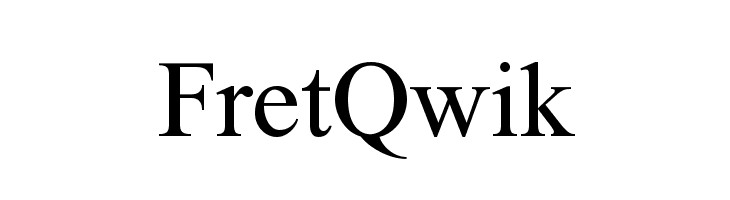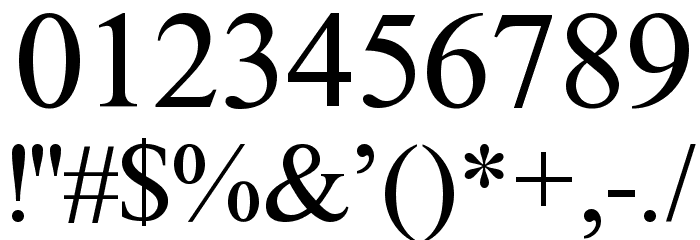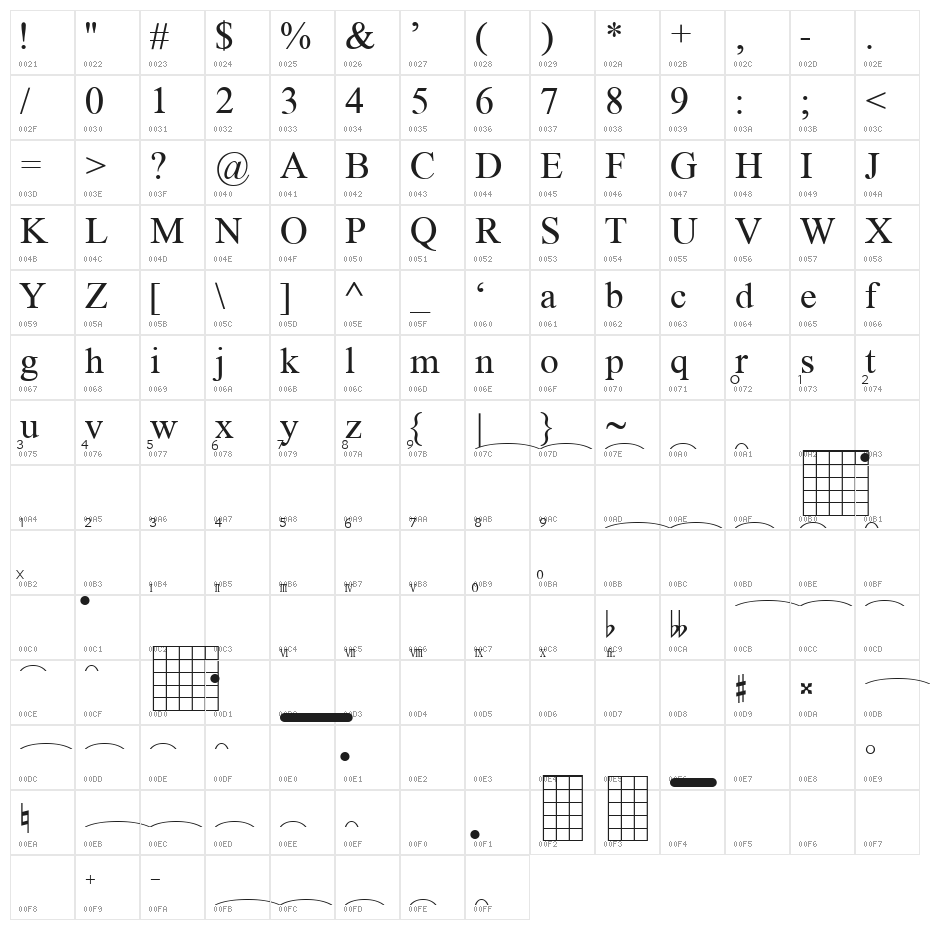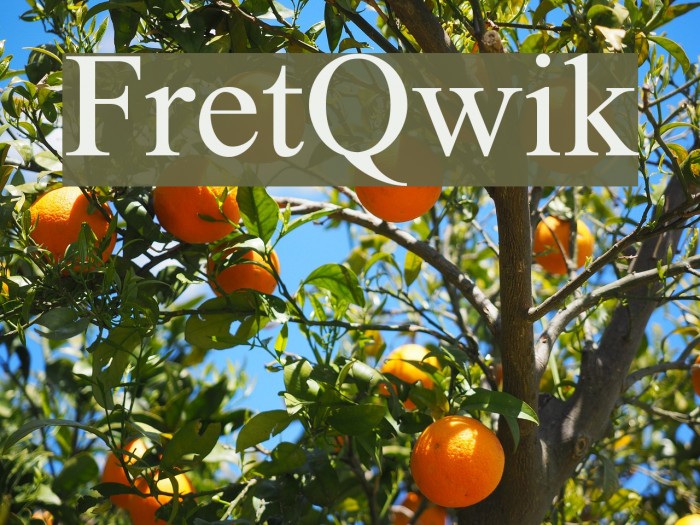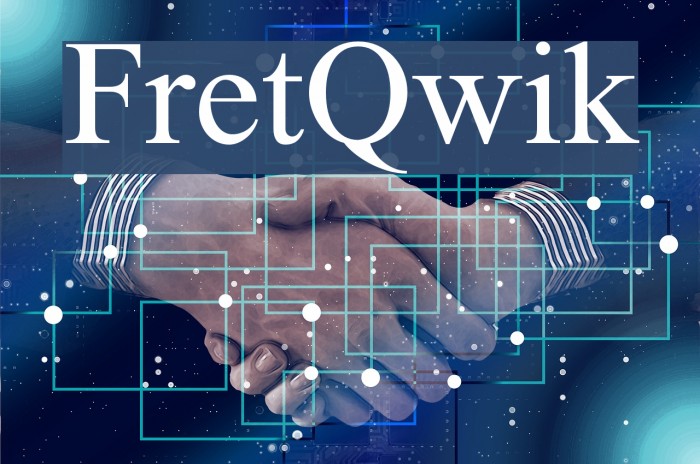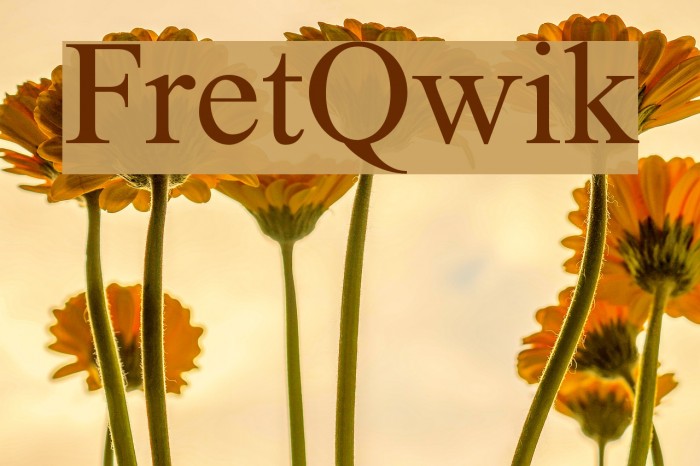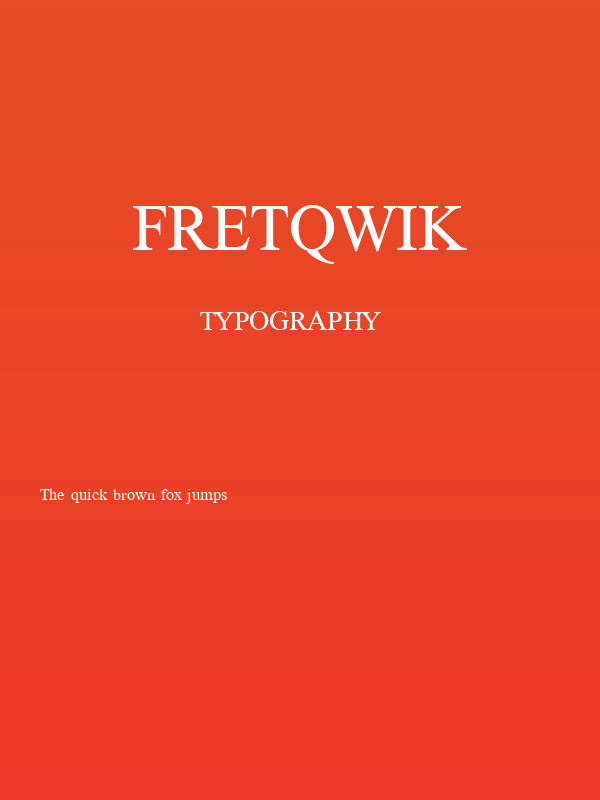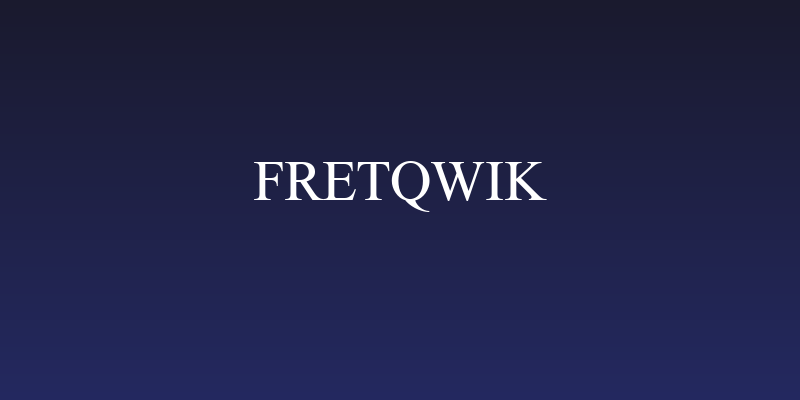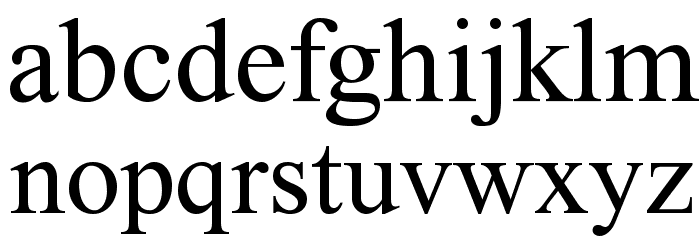
FretQwik Font
FretQwik Description
This font features a classic serif design with elegant and refined strokes. The characters exhibit a high contrast between thick and thin lines, giving it a sophisticated and timeless appearance. The serifs are pronounced yet graceful, adding a touch of formality and tradition. The uppercase letters are stately and well-proportioned, while the lowercase letters maintain a harmonious balance. The numerals are clear and distinct, ensuring readability. Special characters are designed with the same attention to detail, making this font versatile for various applications.
| Proposed Projects | Ideal for editorial design, book covers, formal invitations, and branding projects that require a touch of elegance and tradition. |